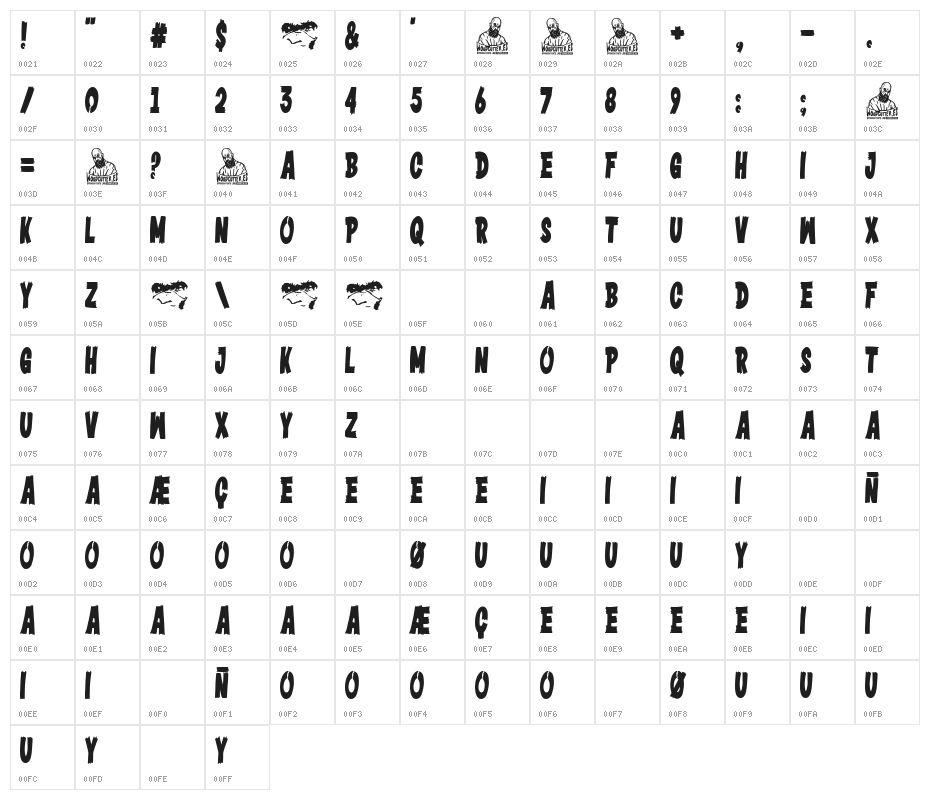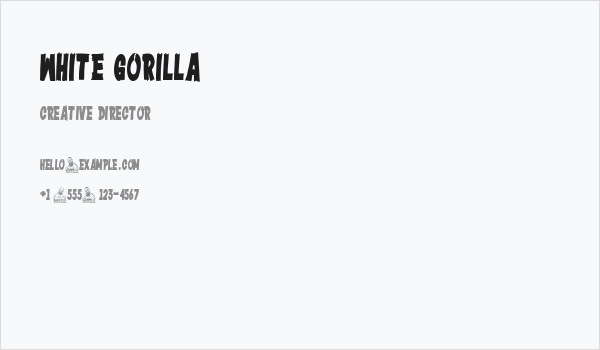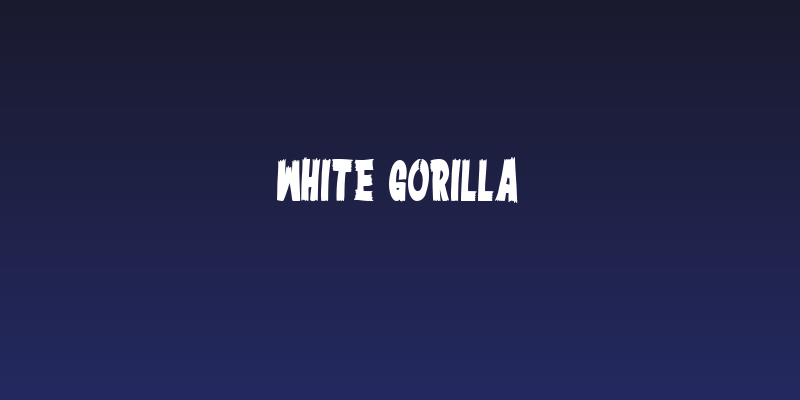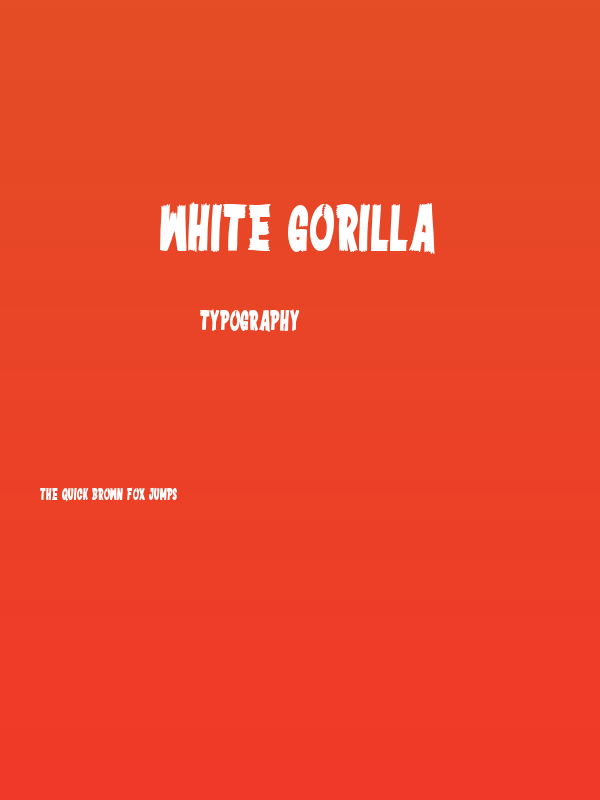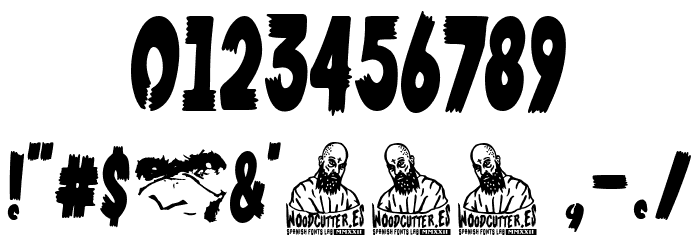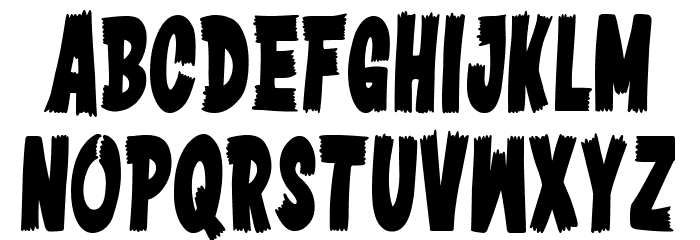
White Gorilla Font
White Gorilla Description
This font features a bold, dynamic style with a rough, textured appearance that gives it a hand-drawn feel. The characters are thick and slightly irregular, adding a sense of movement and energy. The uppercase and lowercase letters maintain a consistent style, with exaggerated strokes and a playful, informal look. The numbers and special characters follow the same design, making the font versatile for various creative applications. Its unique style is eye-catching and ideal for projects that require a strong visual impact.
| Proposed Projects | Ideal for posters, logos, comic book titles, and any project needing a bold, dynamic look. |